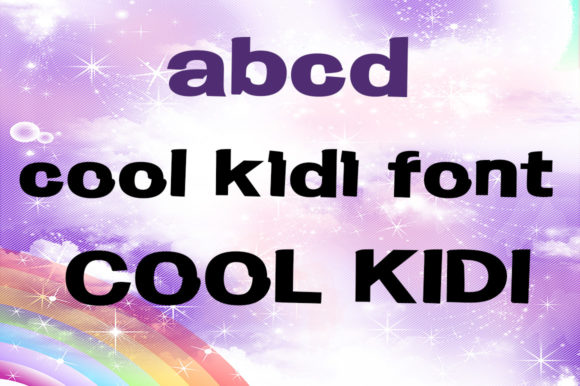
The Ultimate Guide to Cool Kidi Font: Adding a Trendy Touch to Your Designs
I’ll never forget the time I was working on a project for a children’s book cover, and I just couldn’t seem to find the right font. The client wanted something fun, bold, and friendly, but not too over-the-top. I scoured the internet, tried out dozens of fonts, and still, nothing seemed quite right. That was until I stumbled upon Cool Kidi Font. ✨
Cool Kidi is a fun, bold yet friendly display font that’s perfect for cartoon-related designs, children games, quotes, titles, brand names, book covers, posters, or just any creation that requires a trendy touch. In this article, we’ll dive into the world of Cool Kidi Font, explore its features, and learn how to make the most of it in our designs.
- ✅ Unique and playful design: Cool Kidi Font has a distinctive, hand-drawn feel that’s perfect for adding a touch of whimsy to your designs.
- ✅ Highly legible: Despite its playful nature, Cool Kidi Font is surprisingly easy to read, even at smaller sizes.
- ✅ Versatile: This font can be used for a wide range of projects, from children’s books to posters and social media graphics.
- ✅ OpenType features: Cool Kidi Font supports OpenType features, including glyphs and stylistic alternates, which can add an extra layer of creativity to your designs.
- ⚠️ Limited use cases for body text: While Cool Kidi Font is great for headlines and titles, it’s not the best choice for body text. It’s a display font, after all! 🤔
- ⚠️ May not work well with serif fonts: Cool Kidi Font has a distinctly sans-serif feel, so it may not pair well with serif fonts. Experiment with different combinations to find the right fit.
The Story Behind Cool Kidi Font
Cool Kidi Font was designed by a team of creatives who wanted to create a font that was both fun and functional. Inspired by the world of children’s books and cartoons, they set out to create a font that would bring a touch of whimsy to any design. With its bold and playful design, Cool Kidi Font is the perfect choice for anyone looking to add a trendy touch to their projects.
- A: Cool Kidi Font is a fun, bold yet friendly display font that’s perfect for cartoon-related designs, children games, quotes, titles, brand names, book covers, posters, or just any creation that requires a trendy touch.